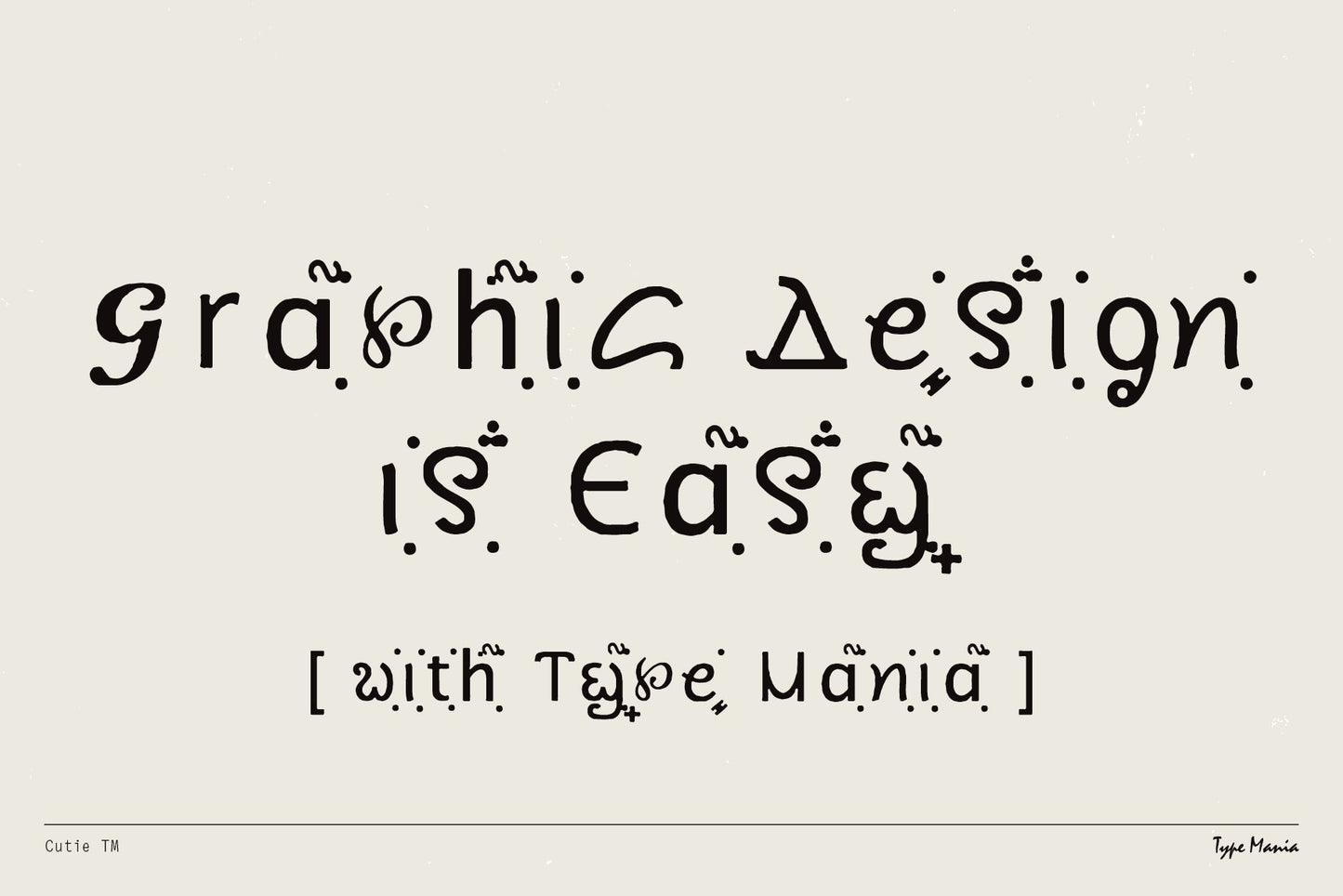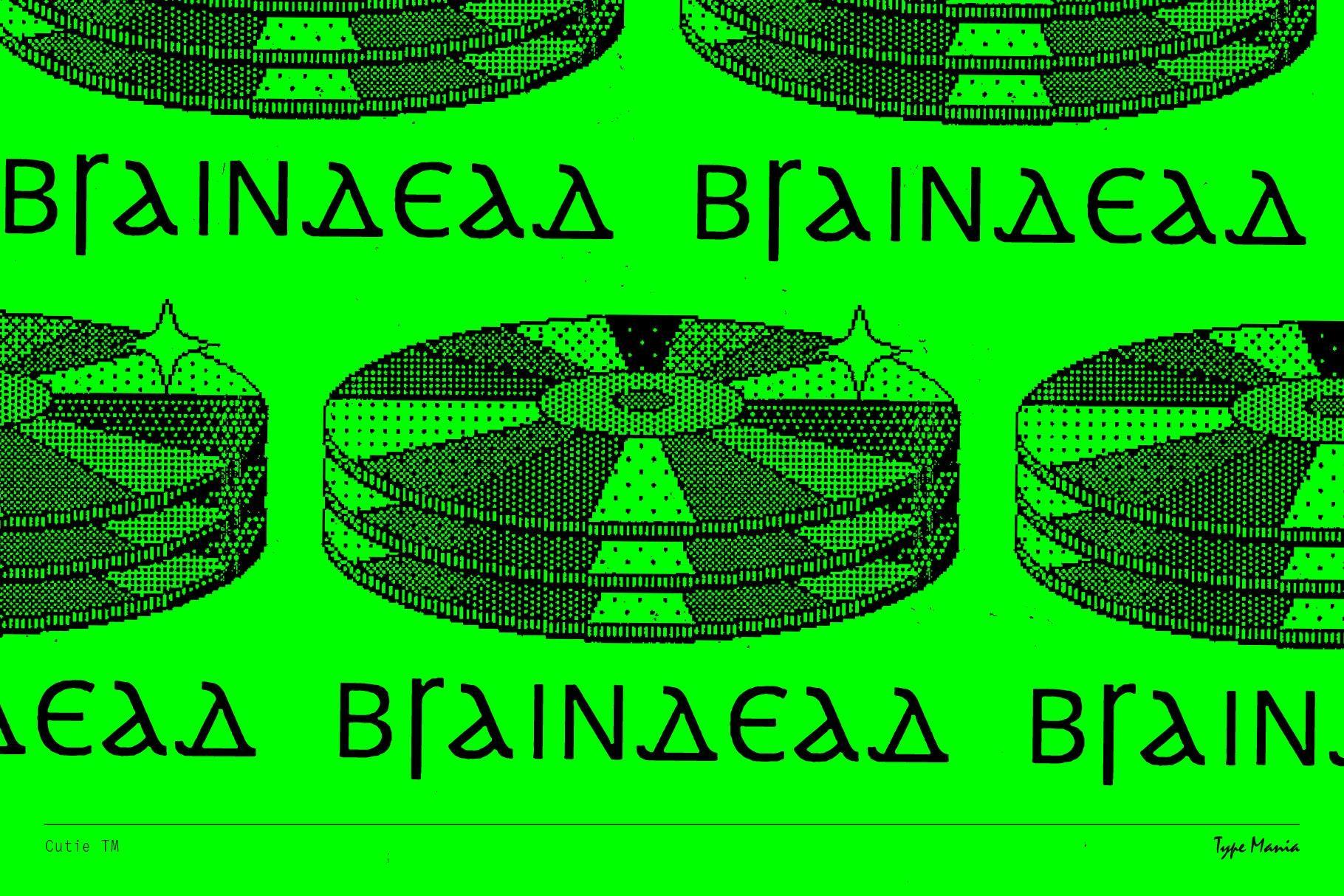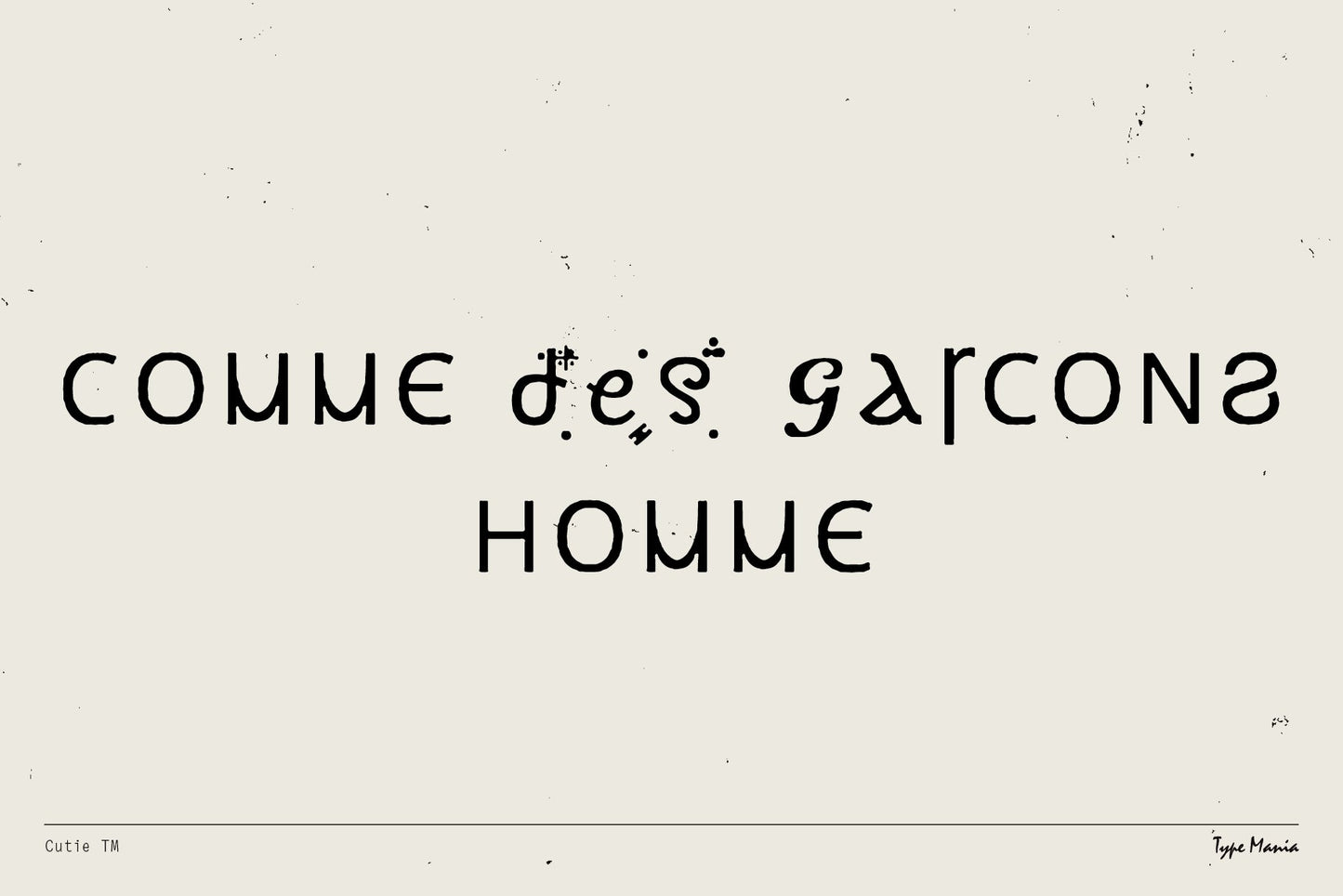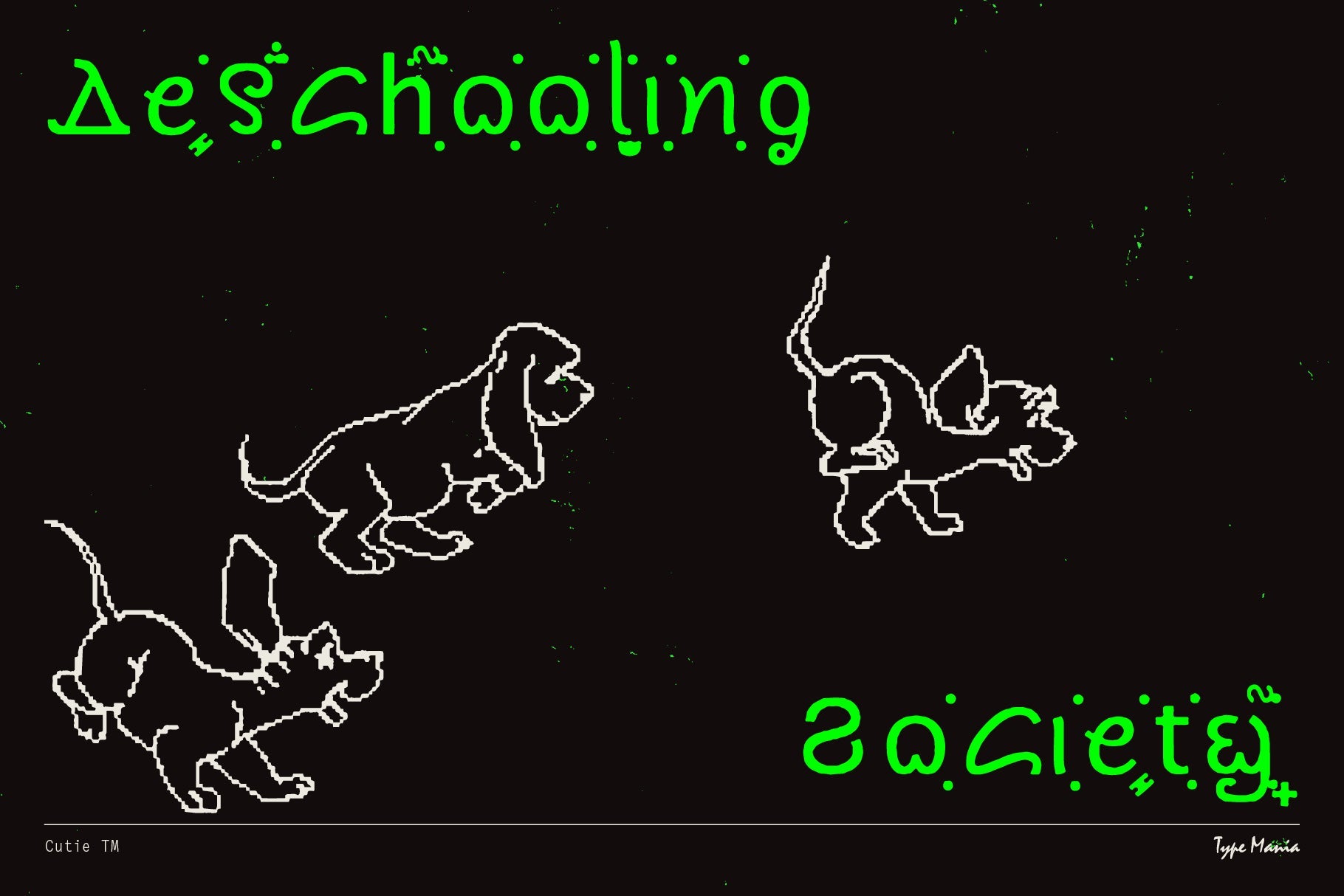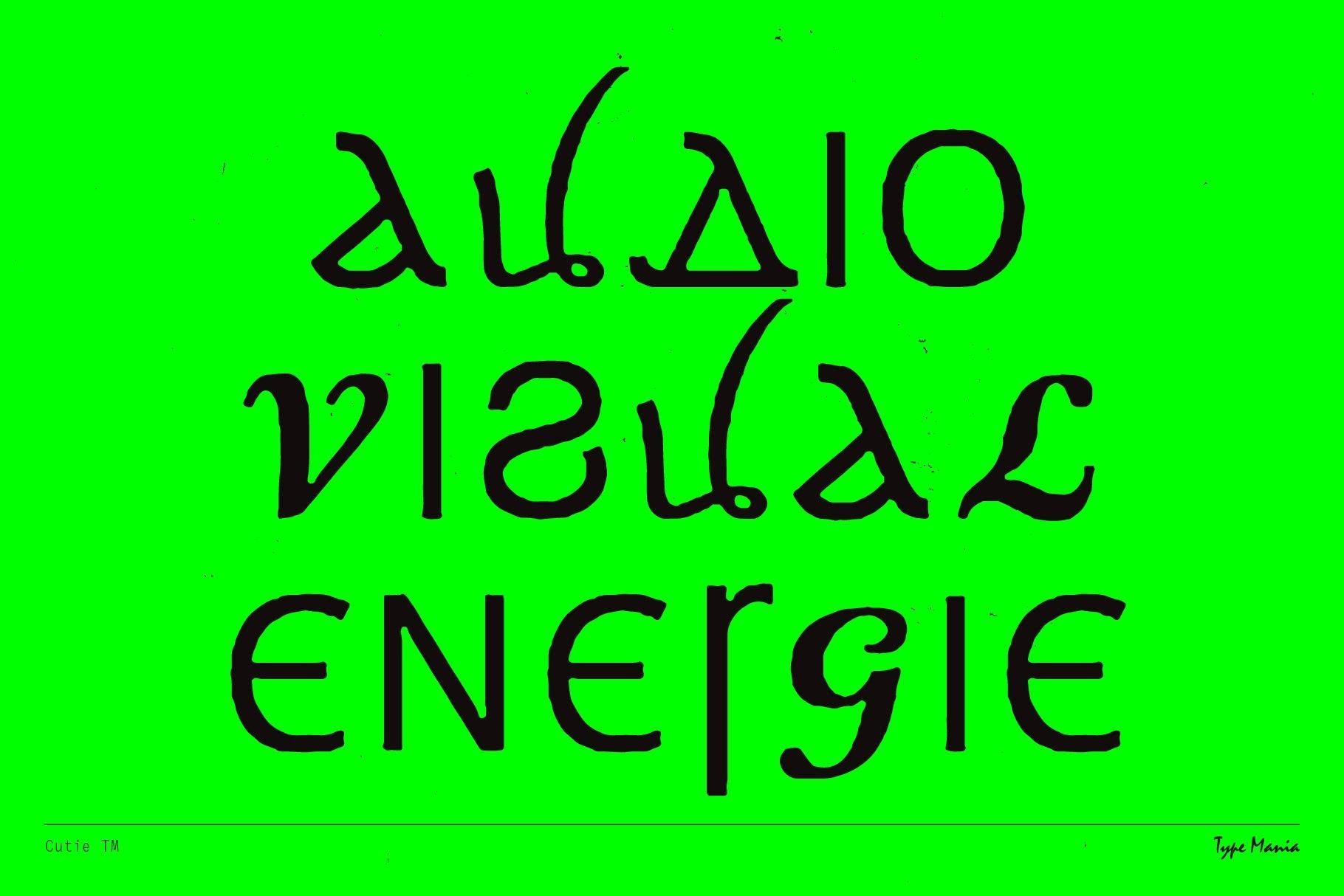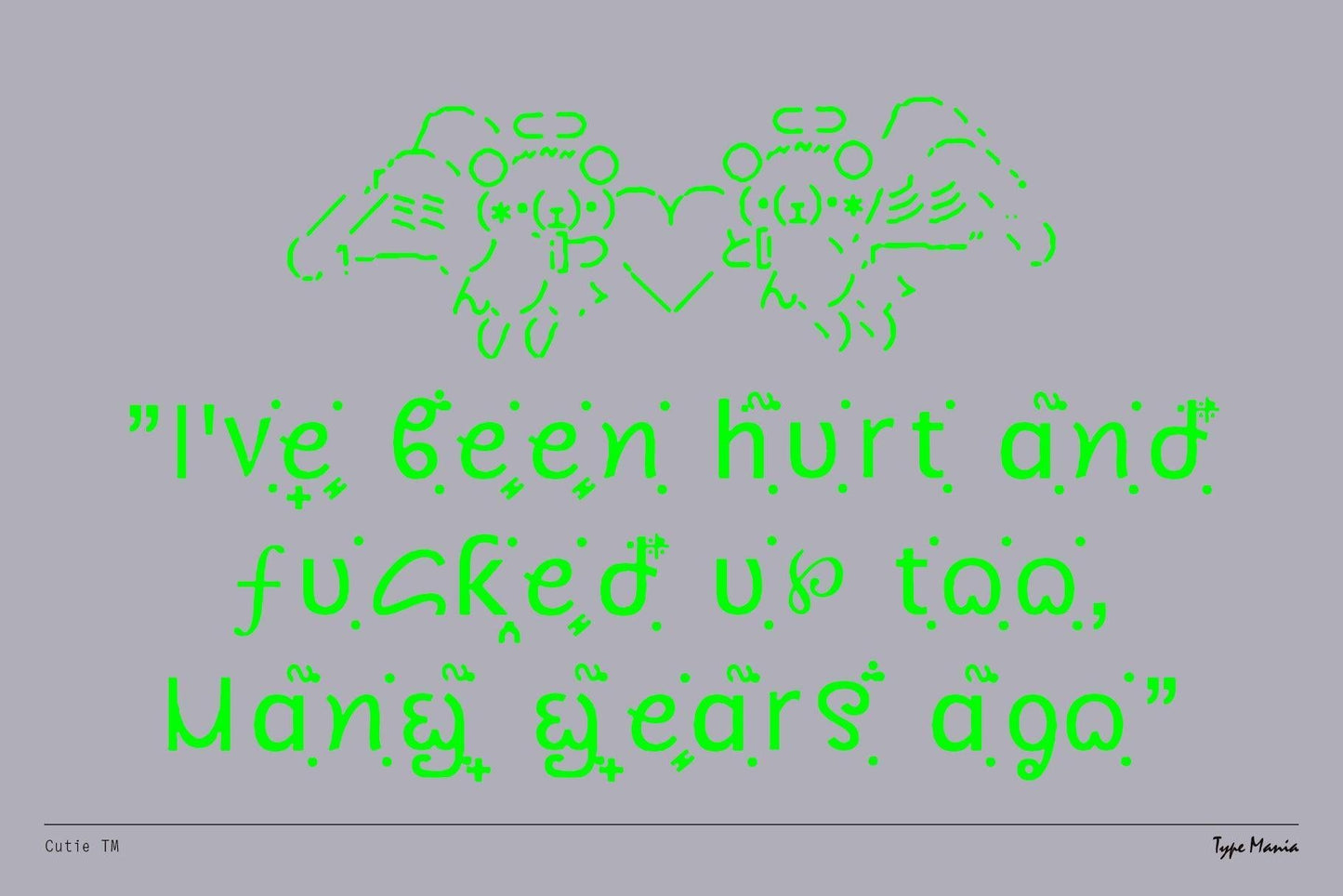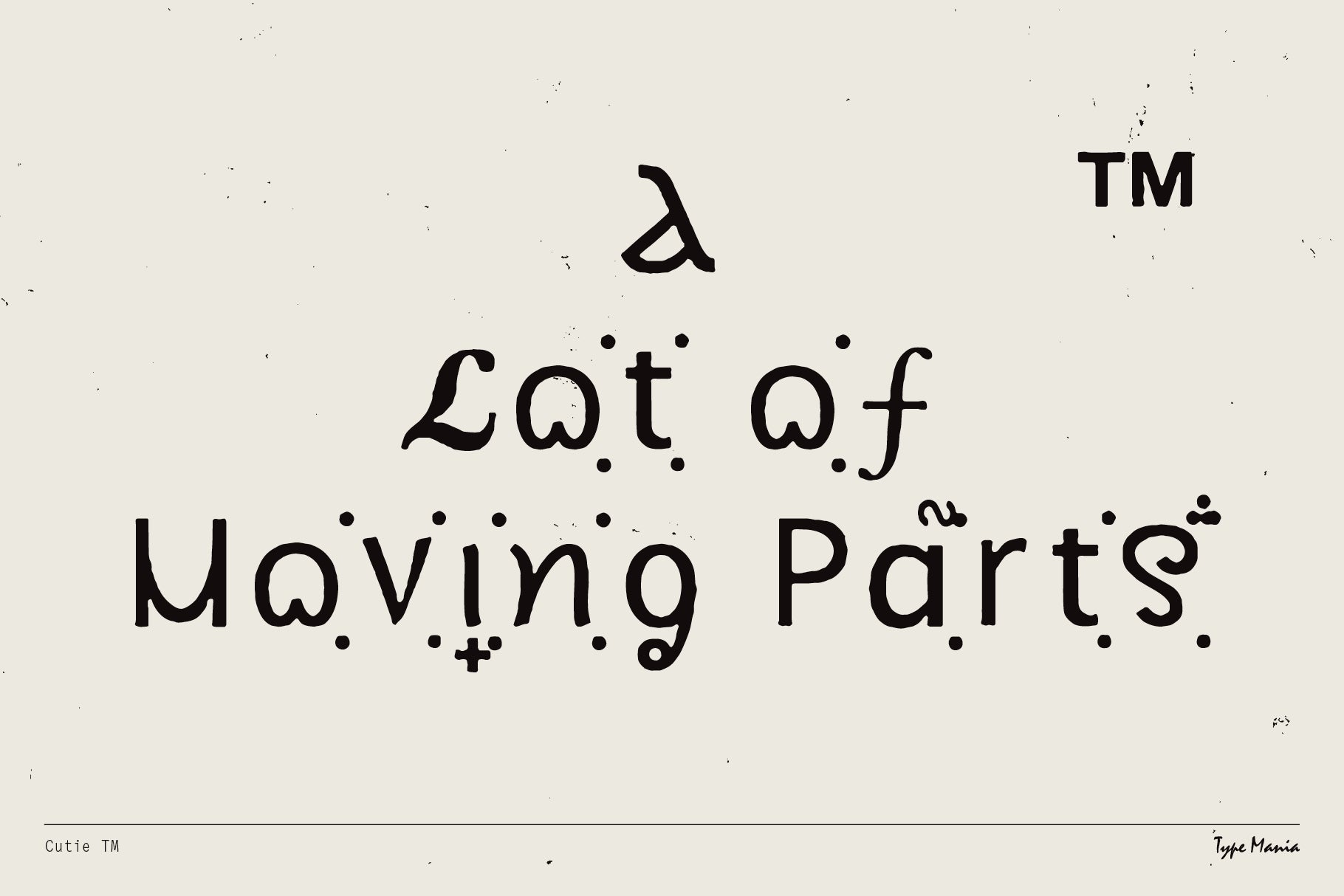
Cutie TM
Cutie TM is a cute (daa) squiqqly font inspired by the internet. As a part of Type Mania's Nice Price collection, it won't break the bank either 😎